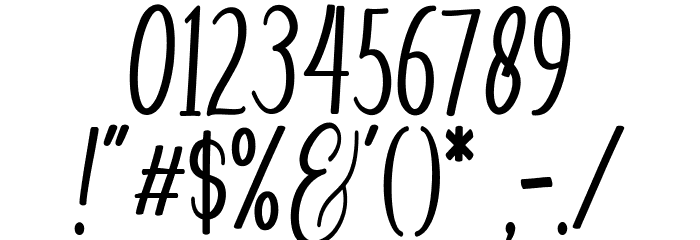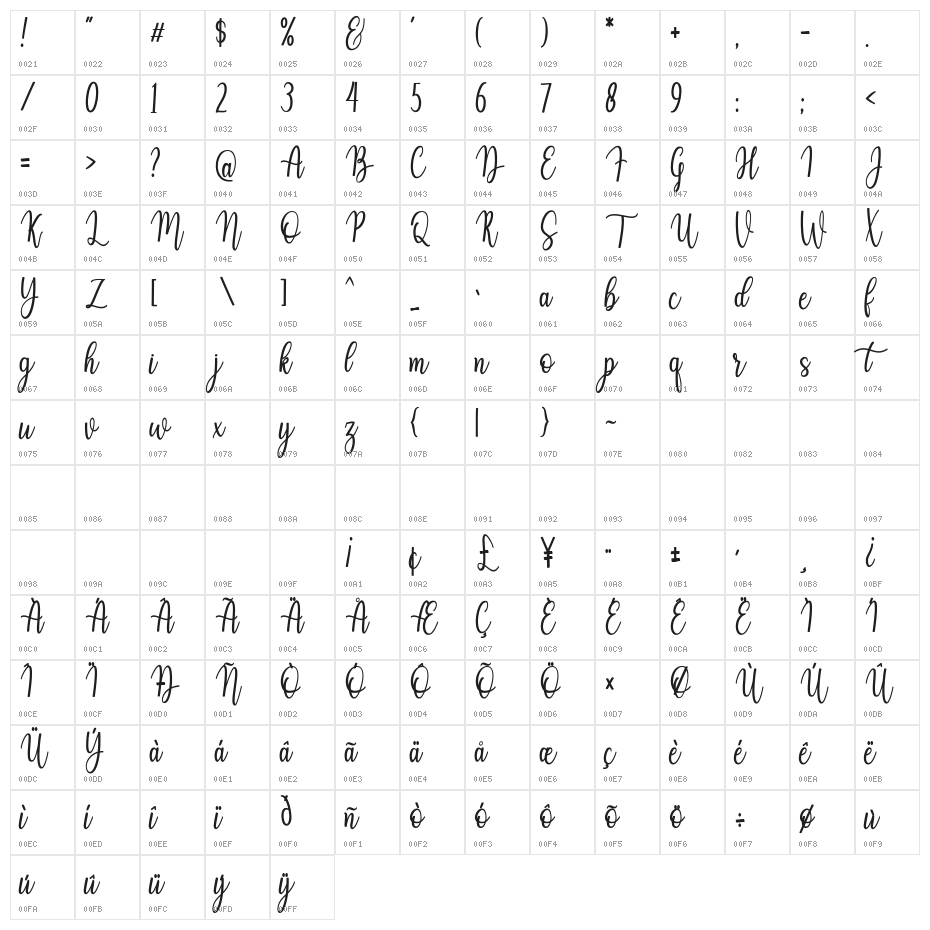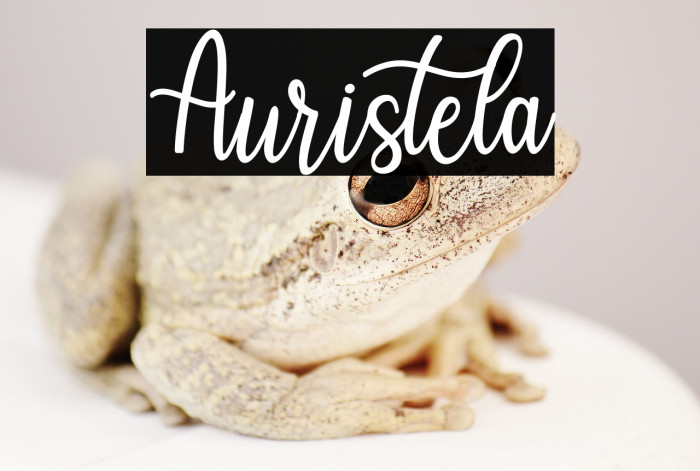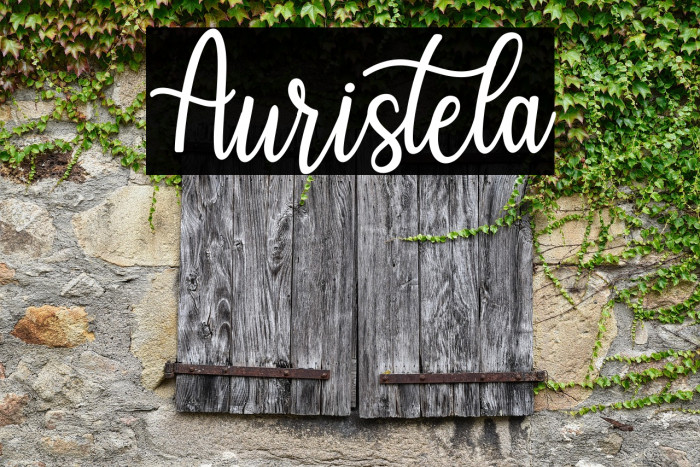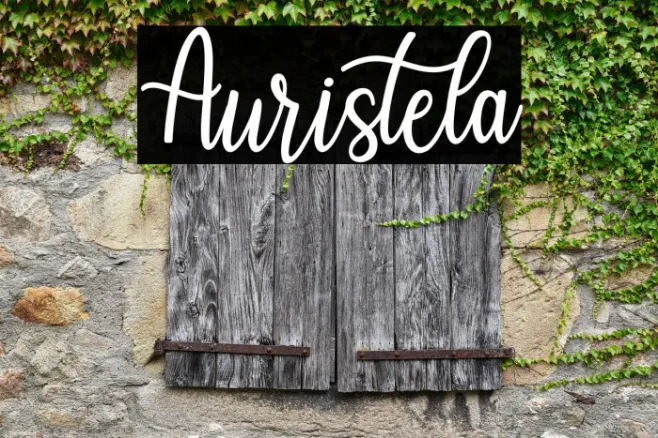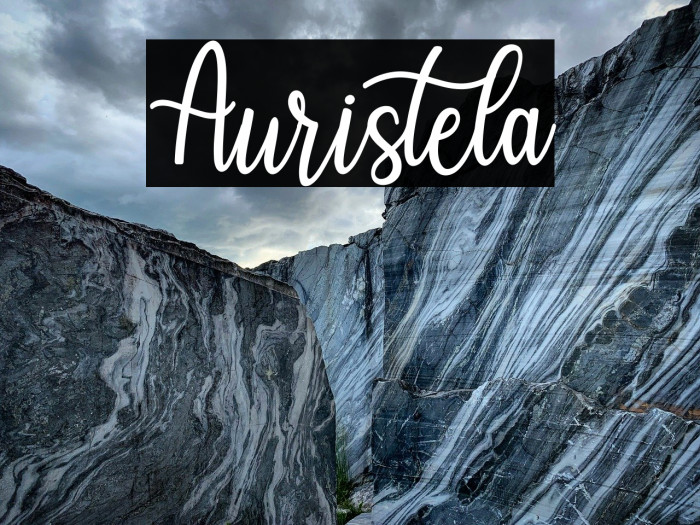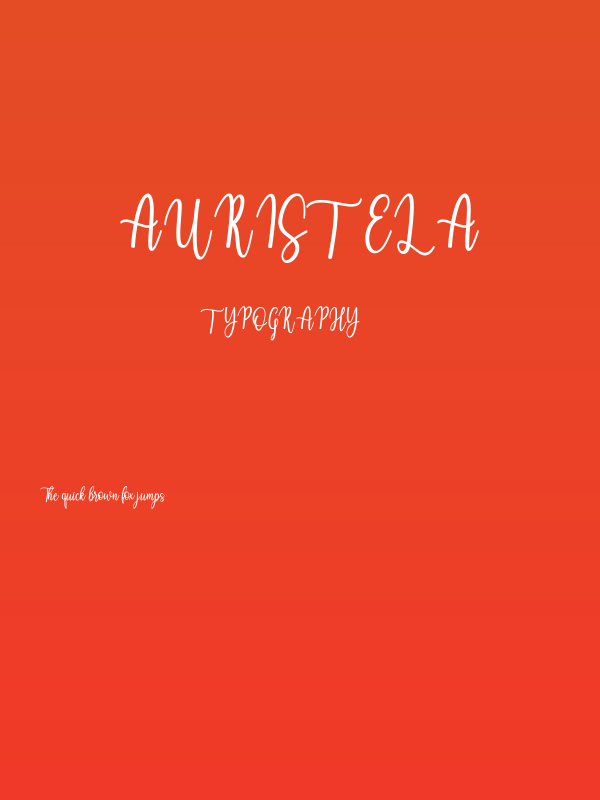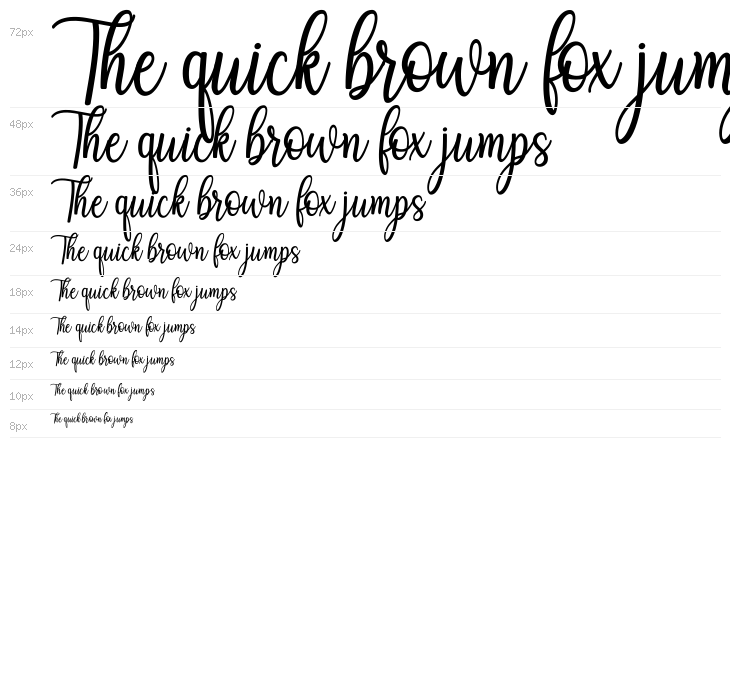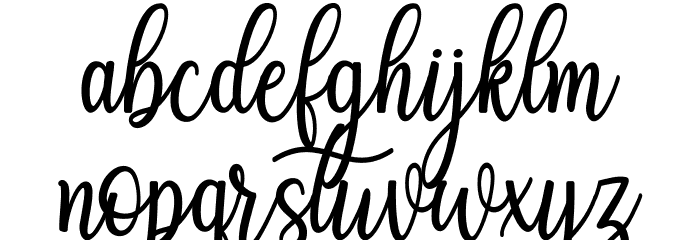
Auristela Font
Auristela Description
This font exudes a playful and elegant script style, characterized by its fluid, cursive strokes and smooth, flowing lines. The uppercase letters are distinct with a slight slant, giving them a dynamic and lively appearance. The lowercase letters maintain a consistent rhythm, enhancing readability while preserving the script's artistic flair. Numbers are well-proportioned and align seamlessly with the overall style, making them suitable for various applications. Special characters are thoughtfully designed, ensuring they complement the alphabetic characters without disrupting the font's cohesive look. This font is ideal for projects that require a touch of sophistication and creativity.